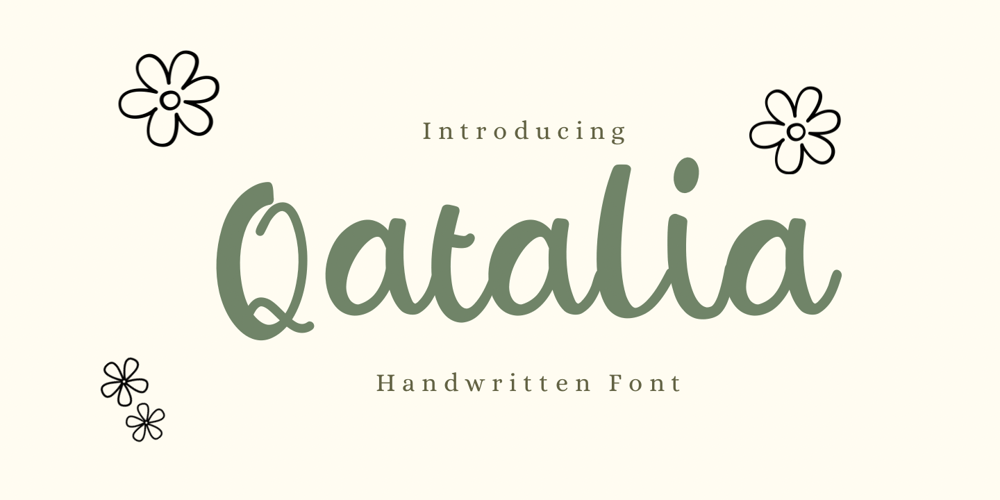
Qatalia Font Family was designed by David Perkasya and published by Insan Perkasya. Qatalia contains 1 styles and family package options. Qatalia is a handwritten font characterized by its simplicity and distinctiveness. Each letter is crafted with clarity, maintaining a clean and straightforward appearance.With its informal yet engaging style, Qatalia is ideal for a wide range of design applications, including greeting cards, quotes, and posters. Its readability and unique character make it a versatile choice for adding a personal touch to your designs, conveying a sense of authenticity and warmth.